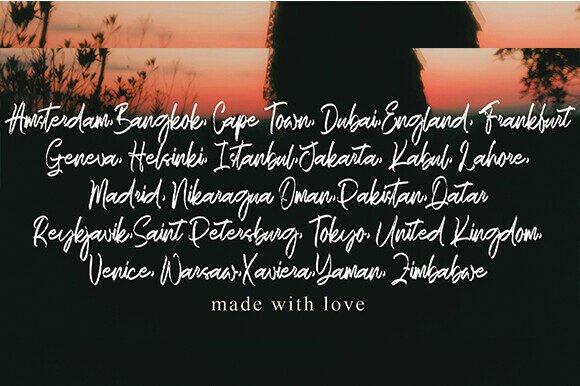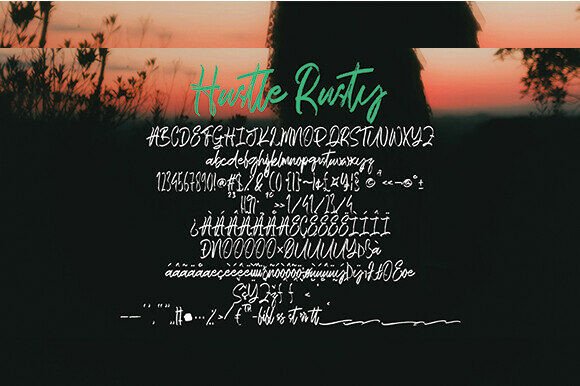
Introduction to Husttle Rusty Font Font
Fonts play a crucial role in design, and the Husttle Rusty Font font is a typeface that brings both character and versatility to any project. Whether you’re working on a branding project, a website, or a print design, the Husttle Rusty Font font offers a unique style that can elevate your work.
This decorative brush script font , Husttle Rusty , exudes energy and confidence with its bold, textured strokes and effortless flow.
Its hand-brushed letterforms combine raw, rustic edges with a smooth, modern rhythm, making it perfect for designs that demand both strength and personality The dynamic contrasts and organic imperfections give it a handcrafted authenticity that shines in branding, social media graphics, posters, and merchandise.
Why Choose Husttle Rusty Font Font?
The Husttle Rusty Font font is more than just a typeface – it’s a design tool that helps you communicate your message with style and clarity. Its unique character set and versatile design make it suitable for a wide range of applications, from elegant invitations to bold headlines.
With its carefully crafted letterforms and balanced proportions, the Husttle Rusty Font font ensures readability and visual appeal across all mediums.
What makes Husttle Rusty Font font special?
The Husttle Rusty Font font stands out with its unique design, exceptional readability, and versatility across various design applications.